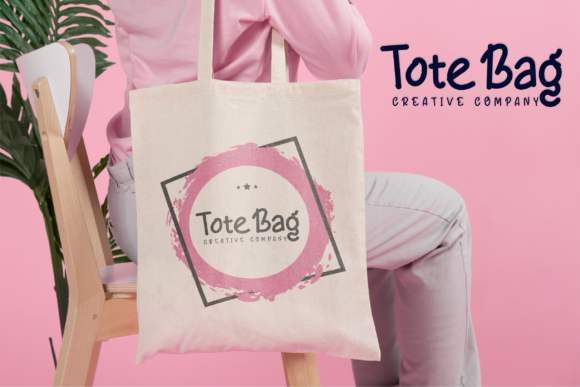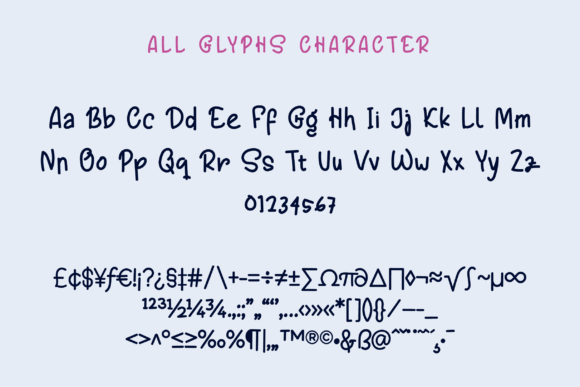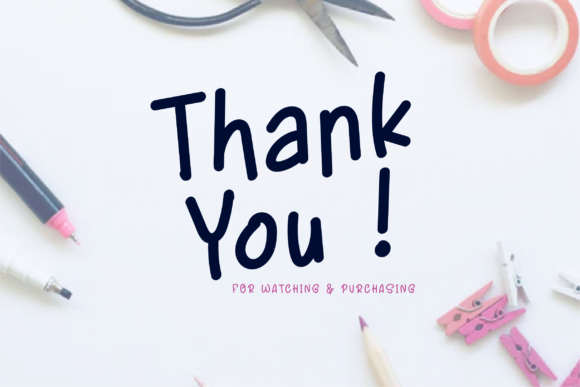
The Magic of Be Crafter Font: A Designer’s New Best Friend
I’ll never forget the time I was working on a project for a client who wanted a custom branding package. I had spent hours scouring font websites, trying to find the perfect handwritten font that would capture the essence of their small business. That’s when I stumbled upon Be Crafter Font. It was love at first sight! 💕
Be Crafter is a sweet and flowing handwritten font, perfect for your favorite projects. Fall in love with its incredibly distinct and timeless style and use it to create spectacular designs! In this article, I’ll share my experience with Be Crafter, its features, and how to make the most of it in your designs.
An Honest Review of Be Crafter Font
What I Love About Be Crafter ✨
- 💫 Unique and elegant handwritten style that’s perfect for branding, packaging, and more
- 🎨 Beautifully crafted with attention to detail, giving it a premium feel
- ⚠️ Some users may find the font a bit too ornate for very simple designs
- ⚠️ Limited availability of certain characters, such as ligatures
The Story Behind Be Crafter Font
Be Crafter was designed with love and care by a talented type designer who wanted to create a font that would inspire creativity and bring joy to designers and crafters alike. With its unique and elegant style, Be Crafter is sure to become a favorite among designers and hobbyists.
Q: What is Be Crafter Font?
A: Be Crafter Font is a sweet and flowing handwritten font, perfect for a range of design projects.